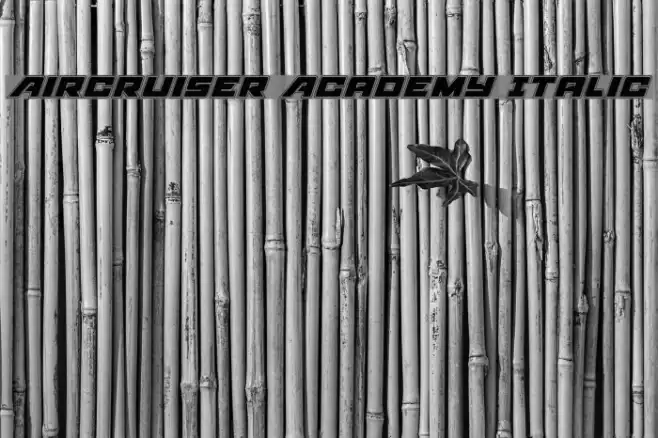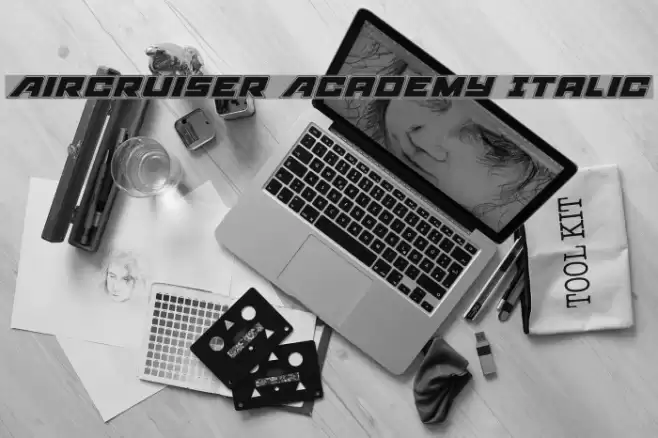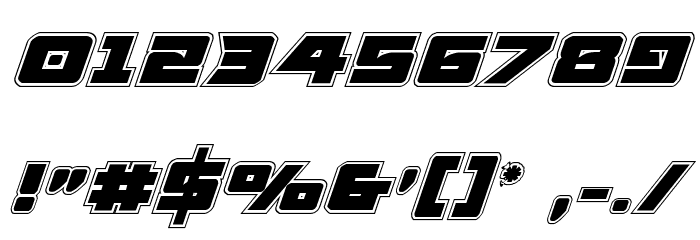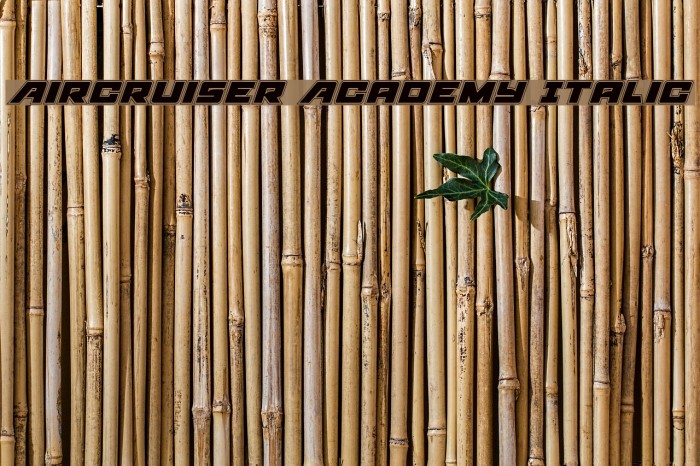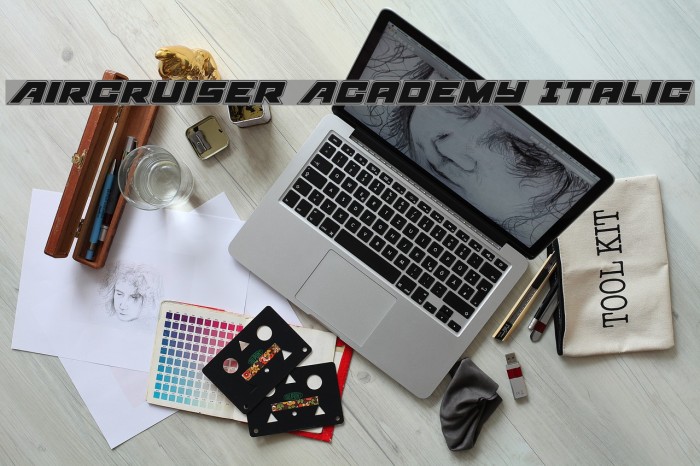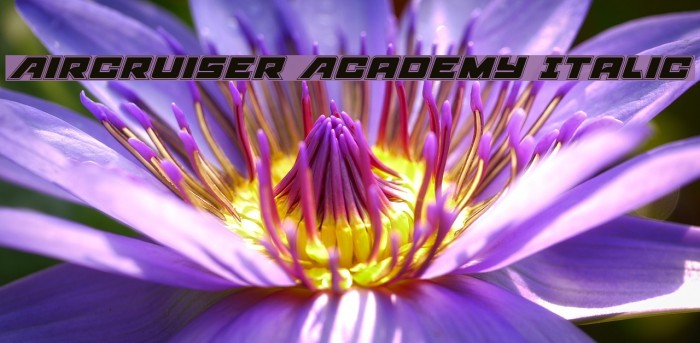
Aircruiser Academy Italic Font
Aircruiser Academy Italic Description
This font features a bold, italicized style with a distinct, futuristic appearance. The characters are outlined, providing a three-dimensional effect that enhances its dynamic look. The uppercase and lowercase letters maintain a consistent design, with sharp angles and a slight slant that adds to its modern appeal. The numbers and special characters follow the same stylistic cues, ensuring uniformity across all glyphs. This font is ideal for projects that require a strong, impactful visual presence.
A bold, italicized font with a futuristic, outlined style from Uncategorized fonts.
- Proposed Projects: Ideal for sports branding, video game titles, and futuristic-themed designs.